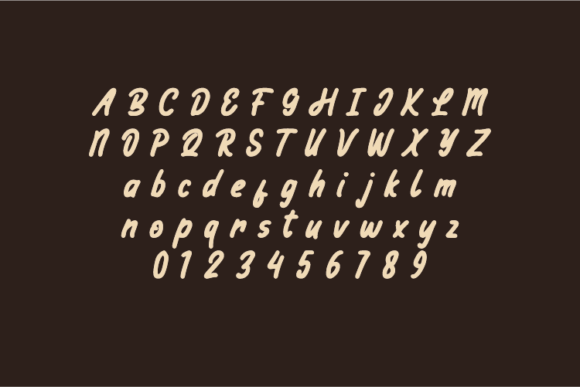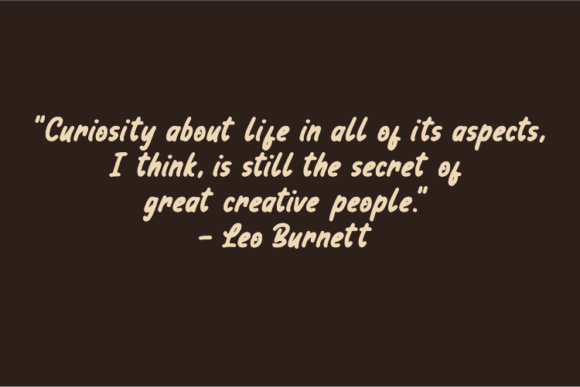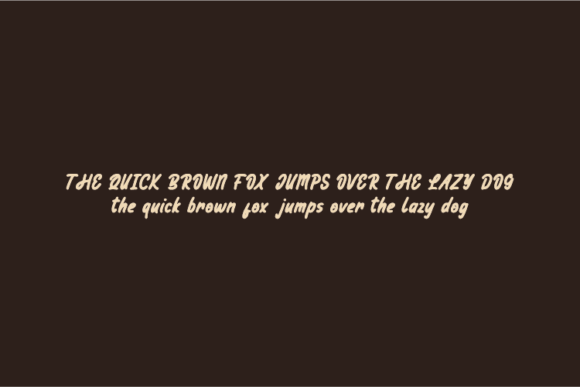
About Penuche Font
Penuche is a natural handwritten font made without changing a single node in each character’s indentation. This makes this font very interesting and unique. Perfect for quotes, notes, tees, and any product design.